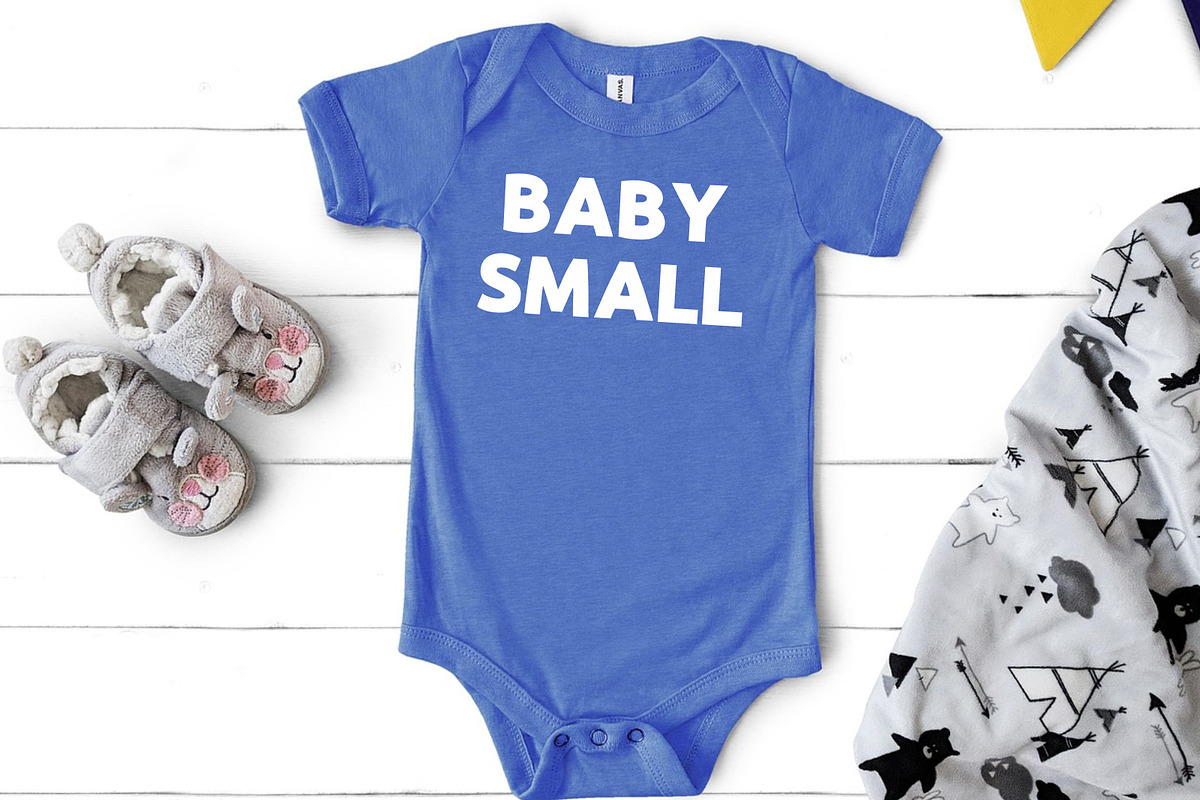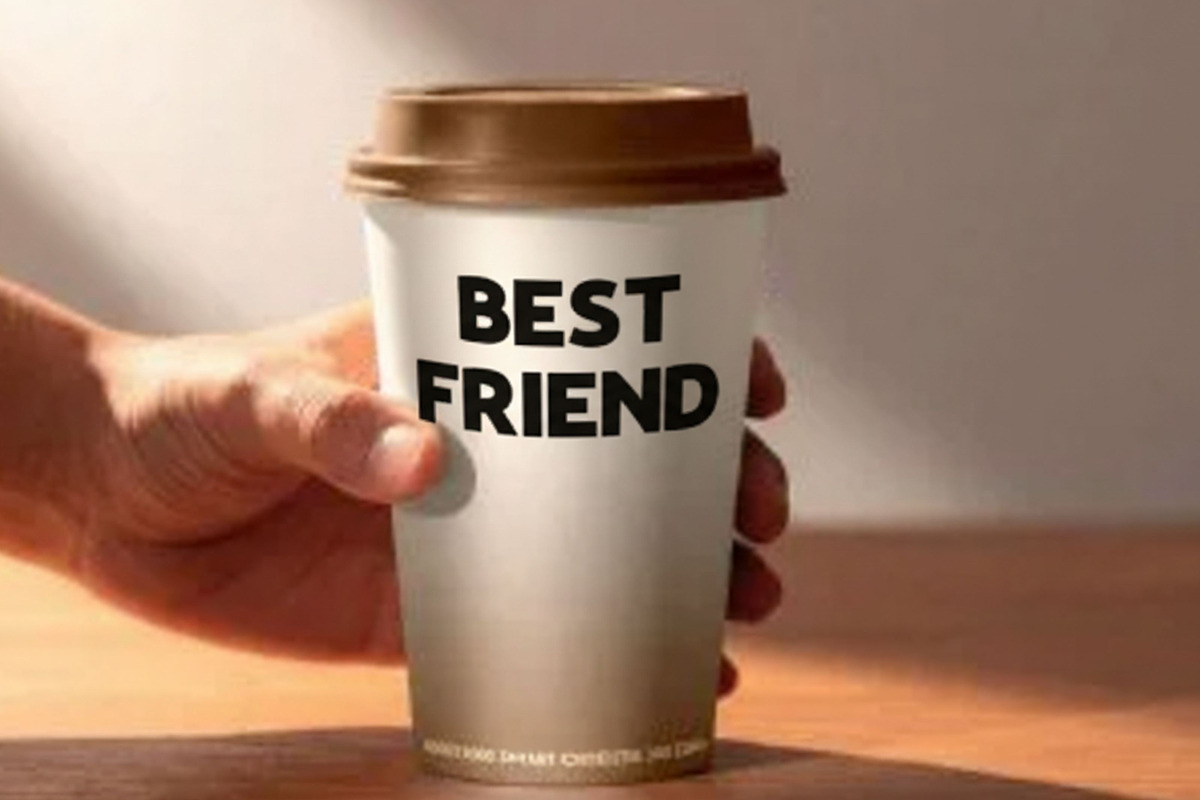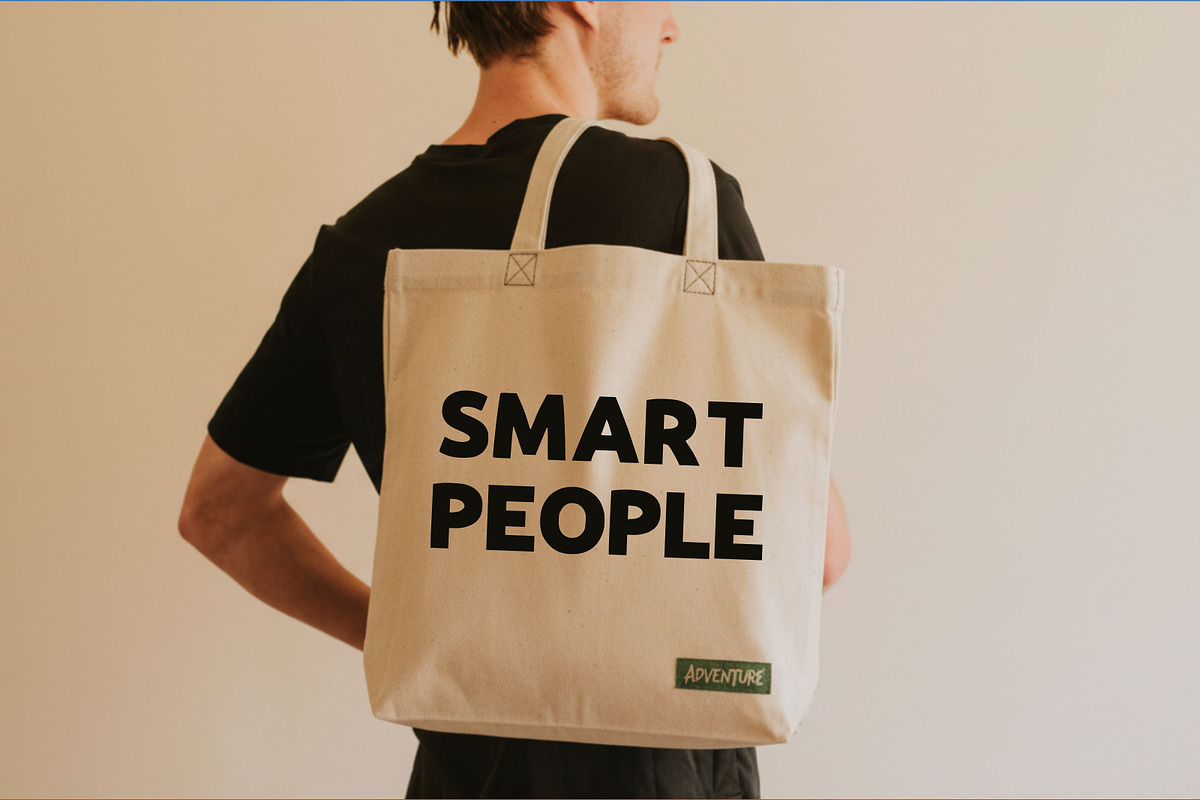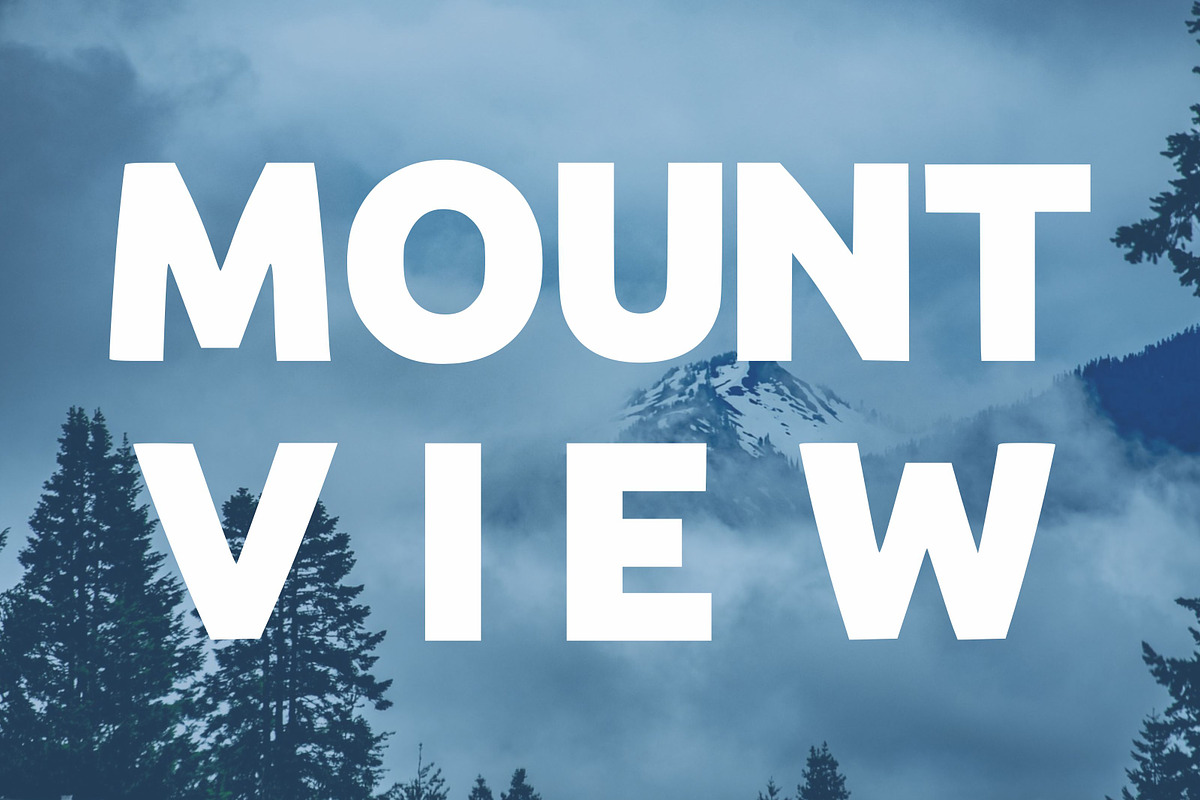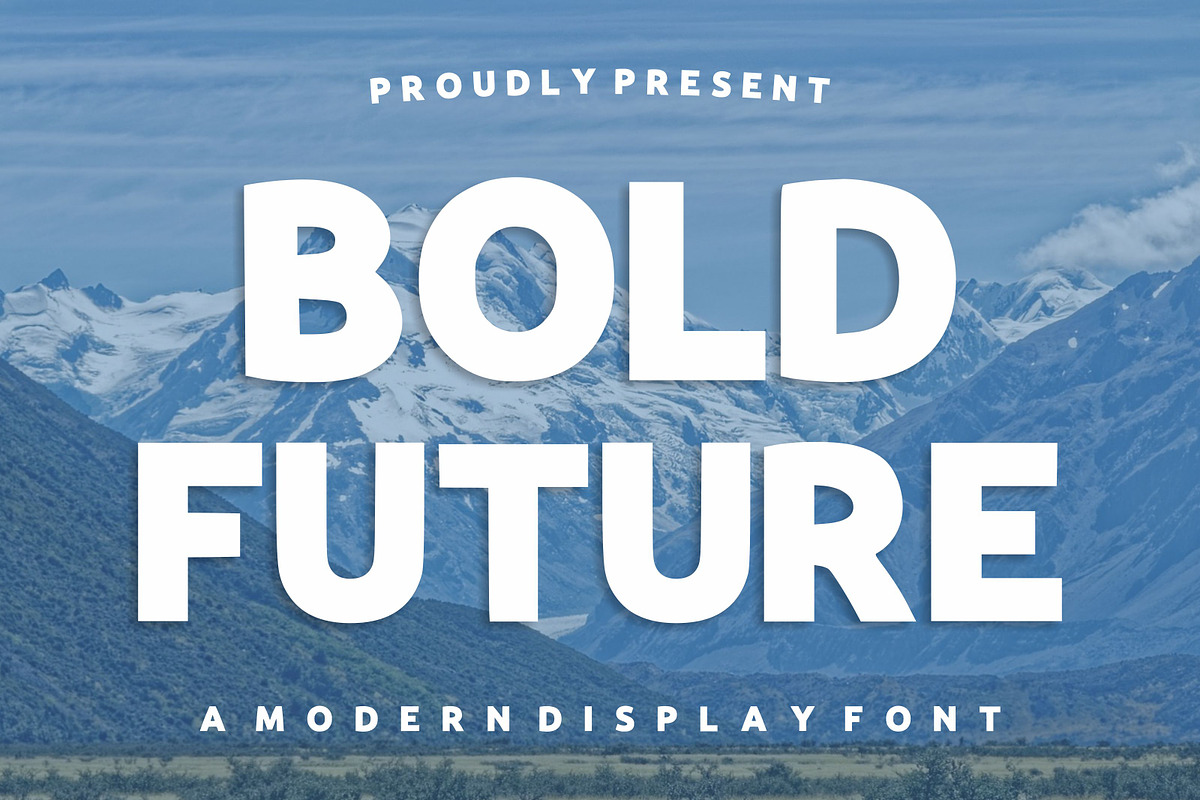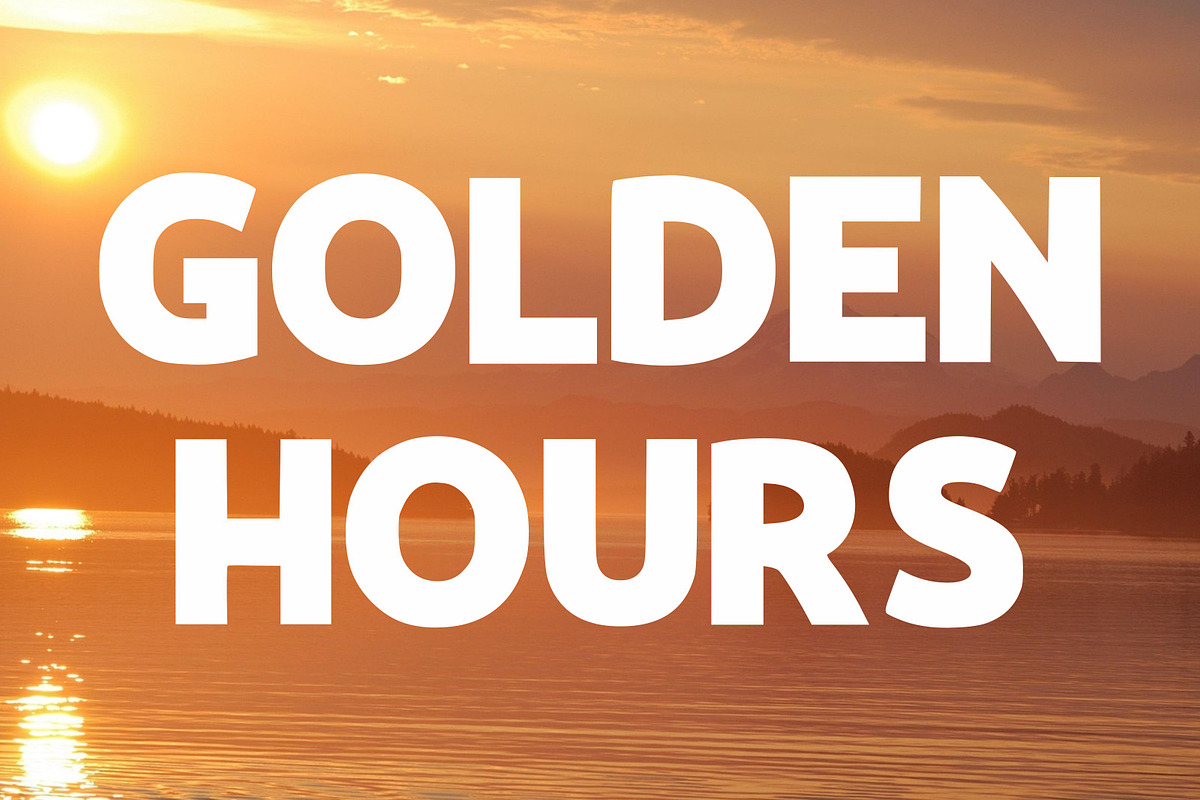
Bold Future
Bold Future is a strong and modern display font designed to make a powerful visual impact. With its clean lines, geometric structure, and bold weight, this font is perfect for contemporary designs that demand attention. Inspired by futuristic and minimal aesthetics, Bold Future works beautifully for headlines, posters, branding, and digital content.
Its solid and confident appearance makes it ideal for projects that aim to convey strength, innovation, and clarity.